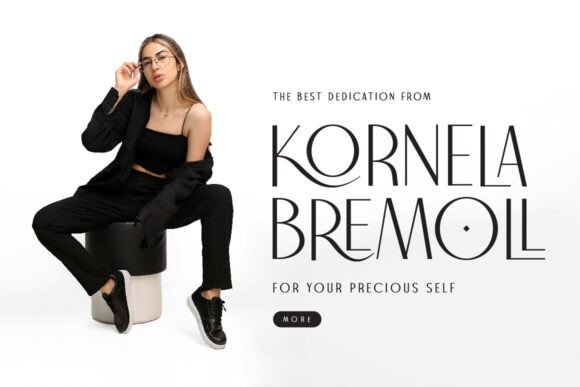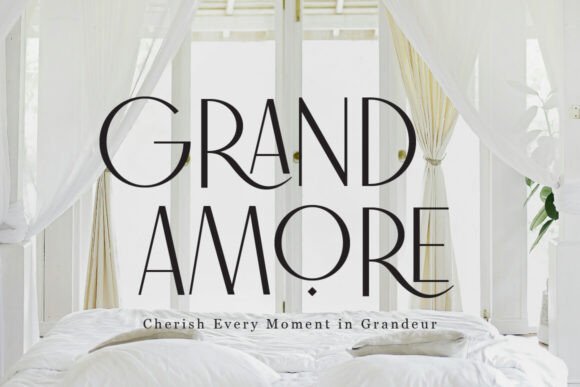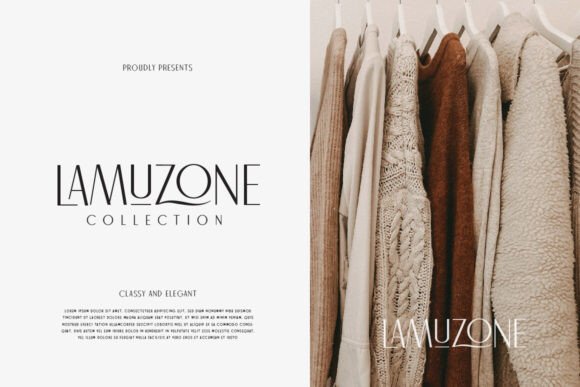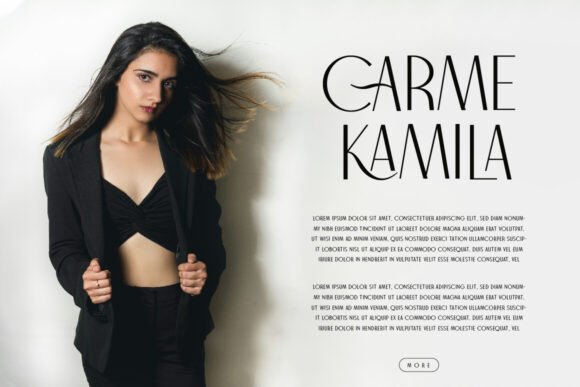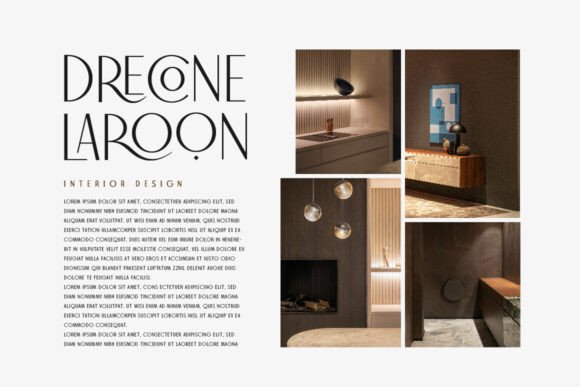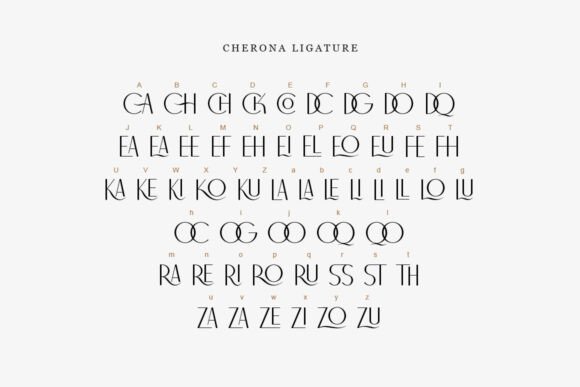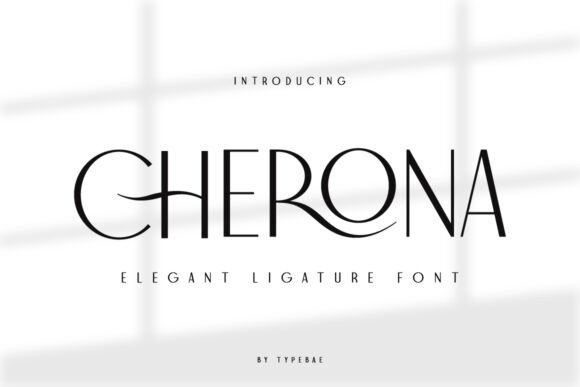
Cherona Font: Elevate Your Designs with Elegance and Sophistication
In the world of typography, a font can make or break a design. For designers and crafters seeking to add a touch of luxury and refinement to their projects, the Cherona Font is an exceptional choice. This elegant and stylish typeface boasts beautiful ligatures, making it a highly versatile font suitable for a wide range of applications.
What Makes Cherona Font Stand Out?
Cherona is more than just a font – it’s an experience. Its refined look and feel add a level of sophistication to any project, making it perfect for luxury logos, fashion branding, editorial designs, invitations, home décor, book covers, and more. Whether you’re working on a large-scale project or a small, intricate design, Cherona Font adapts seamlessly, ensuring your work looks stunning in both large and small sizes.
Key Features of Cherona Font
- Elegant and Stylish: Cherona’s design exudes elegance and style, making it ideal for projects that demand a high level of sophistication.
- Beautiful Ligatures: The font features beautiful ligatures that enhance the overall aesthetic of your designs, adding a touch of refinement and luxury.
- Highly Versatile: Cherona is designed to work wonderfully in both large and small sizes, making it suitable for a wide range of applications, from billboards to business cards.
- Perfect for Luxury Projects: Its refined look makes Cherona perfect for luxury logos, fashion branding, editorial designs, invitations, home décor, book covers, and more.
Applications of Cherona Font
The versatility of Cherona Font makes it an excellent choice for various design projects. Here are some of the areas where Cherona truly shines:
- Luxury Logos: Create a lasting impression with a luxury logo that exudes elegance and sophistication.
- Fashion Branding: Elevate your fashion brand with a stylish and refined typeface that speaks to your audience.
- Editorial Designs: Add a touch of luxury to your editorial designs, making them stand out in a crowded market.
- Invitations: Make your invitations unforgettable with a font that screams elegance and style.
- Home Décor: Bring a level of sophistication to your home décor projects, making them truly special.
- Book Covers: Create eye-catching book covers that capture the essence of your story.
Why Choose Cherona Font?
With so many fonts available, why choose Cherona? The answer lies in its unique blend of elegance, versatility, and sophistication. Here are a few reasons why designers and crafters are falling in love with Cherona Font:
- Unique Aesthetic: Cherona offers a unique aesthetic that’s hard to find in other fonts, making your designs instantly recognizable.
- Time-Saving: With its highly legible design, Cherona saves you time and effort, ensuring your message is conveyed clearly and effectively.
- Cross-Platform Compatibility: Cherona Font is designed to work seamlessly across various platforms and devices, ensuring consistency in your designs.
In conclusion, Cherona Font is a game-changer for designers and crafters seeking to elevate their designs with elegance and sophistication. Its beautiful ligatures, refined look, and versatility make it the perfect choice for luxury logos, fashion branding, editorial designs, invitations, home décor, book covers, and more. Whether you’re working on a large-scale project or a small, intricate design, Cherona Font is sure to make your work stand out.